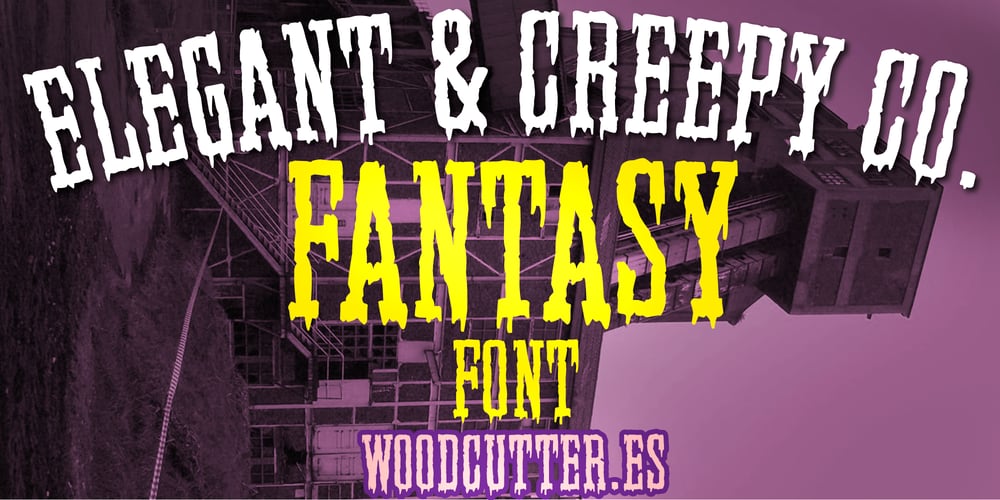
Elegant & Creepy Company
Elegant & Creepy Company font
Elegant & Creepy Company Font Family was designed by Jordi Manero and published by Woodcutter. Elegant & Creepy Company contains 1 styles and family package options. “Elegant and Creepy Company” is an uppercase font with accents that combines the sophistication of thin college-style letters with a creepy twist. The letters, stylized and formal, feature subtle blood drips descending from their edges, creating a fascinating contrast between the elegant and the macabre. This typeface is perfect for designs seeking a spooky yet refined atmosphere, ideal for horror book titles, movie posters, or any project needing a balance between elegance and creepiness.